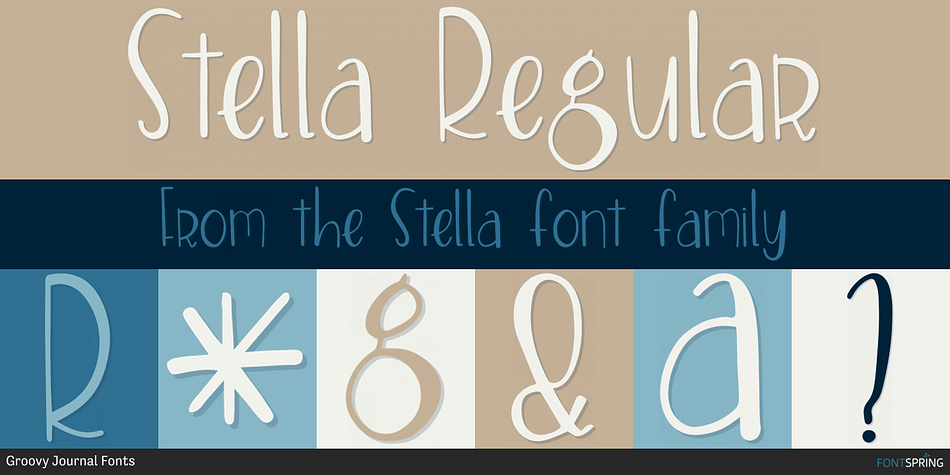
Stella Regular
Stella is a font family published by olexstudio.
Stella script typeface is a beautiful hand typeface that comes with a set of Beautiful extras. Highly Suitable for a variety of media design , logo, fashion, poster and all design product